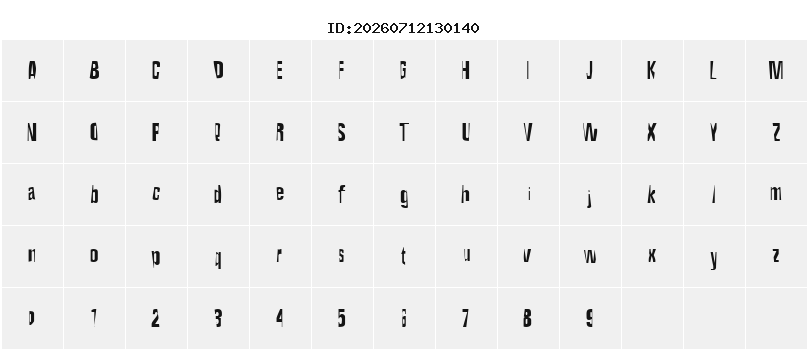
Maceo Preview
• Font Name: Maceo
• Font ID: Altsys Metamorphosis:Maceo Regular
• Full Font Name: Maceo Regular
• Version: Altsys Metamorphosis:97-04-10
• PostScript Name: Maceo
• Character Count: 103
About Maceo.ttf
Maceo.ttf is a modern, elegant sans-serif font designed for ultimate readability and visual harmony. Perfect for branding, headlines, web design, and print materials.